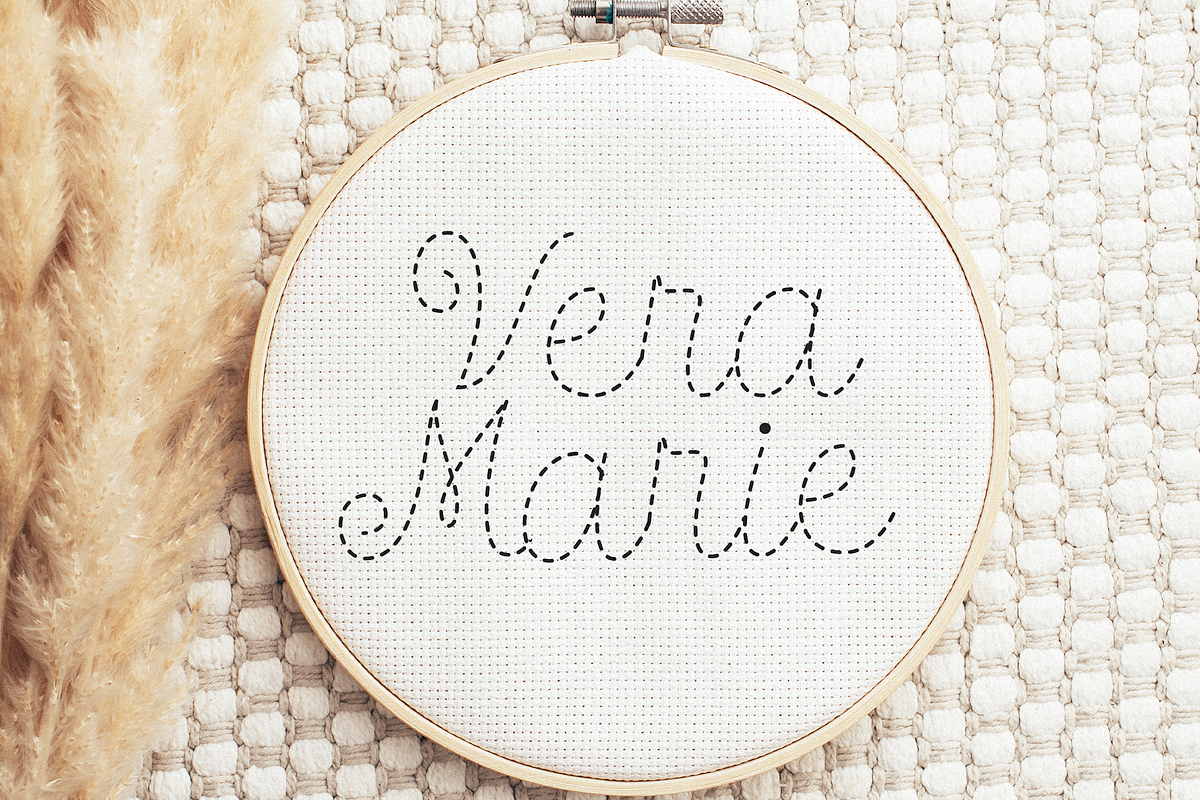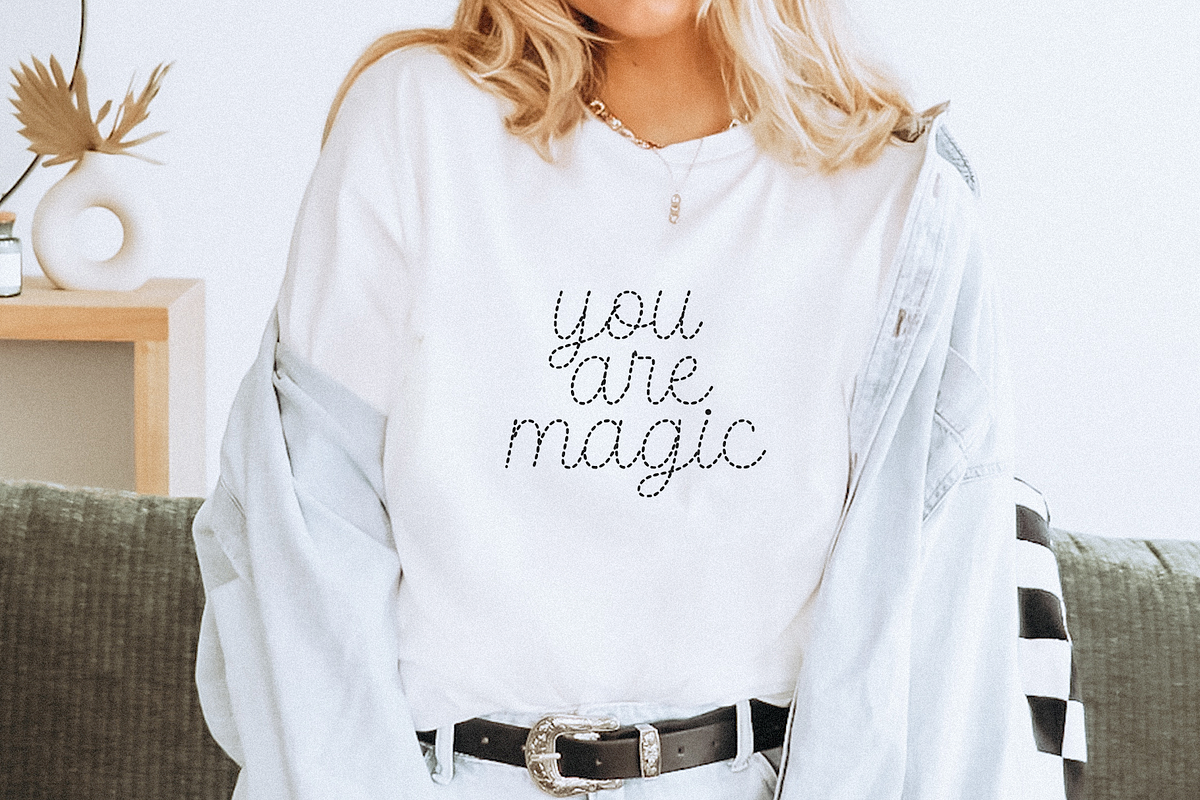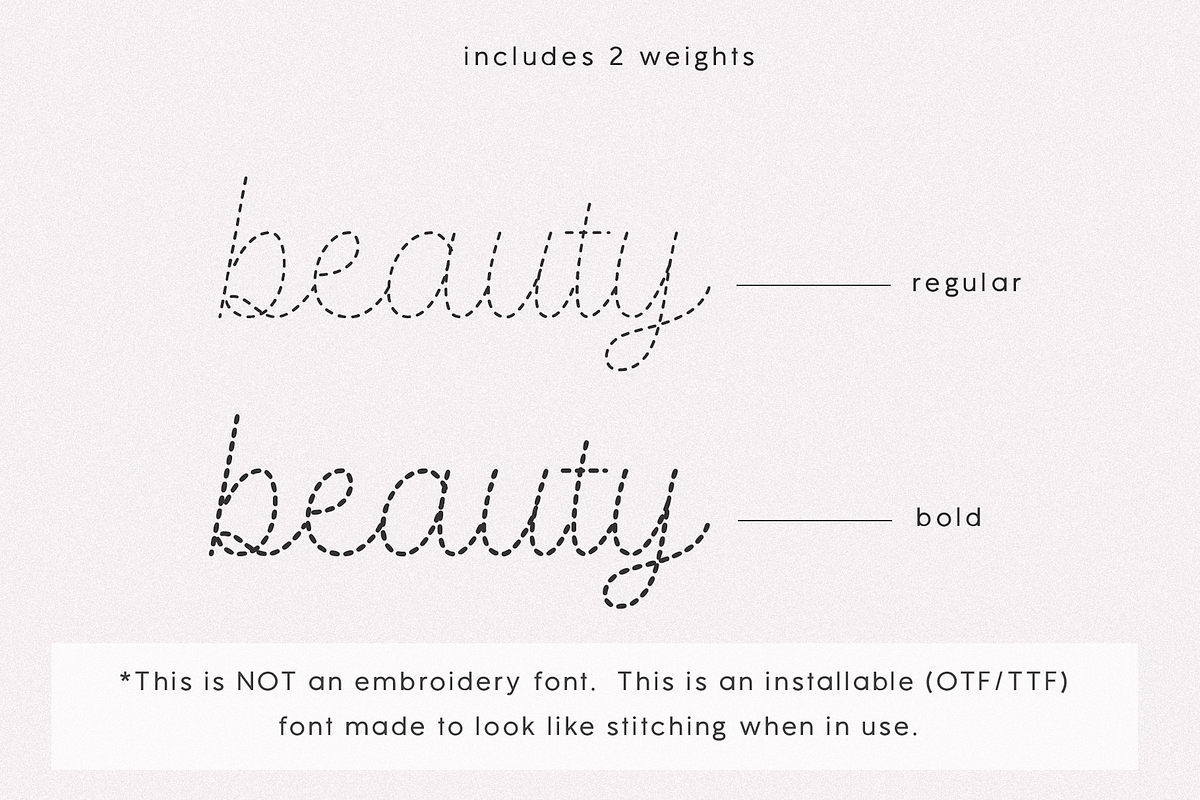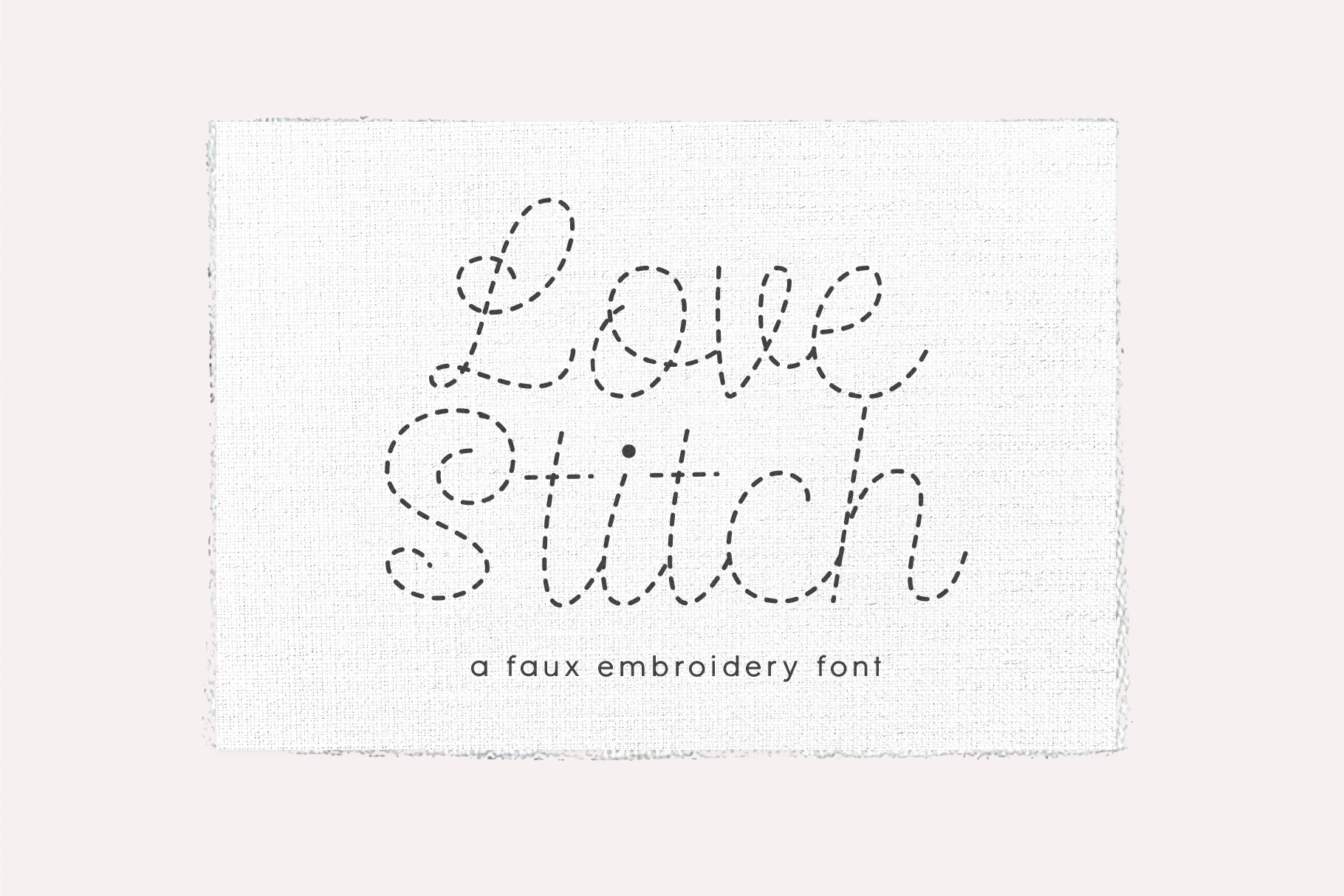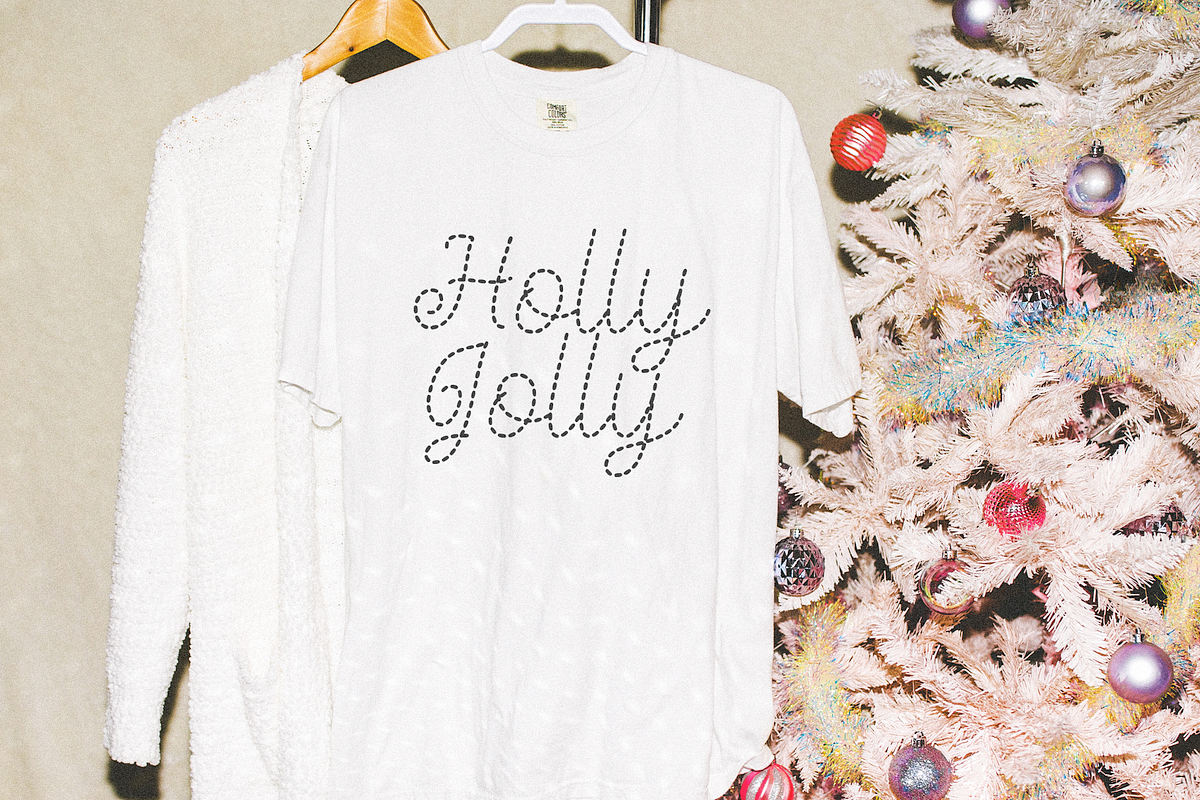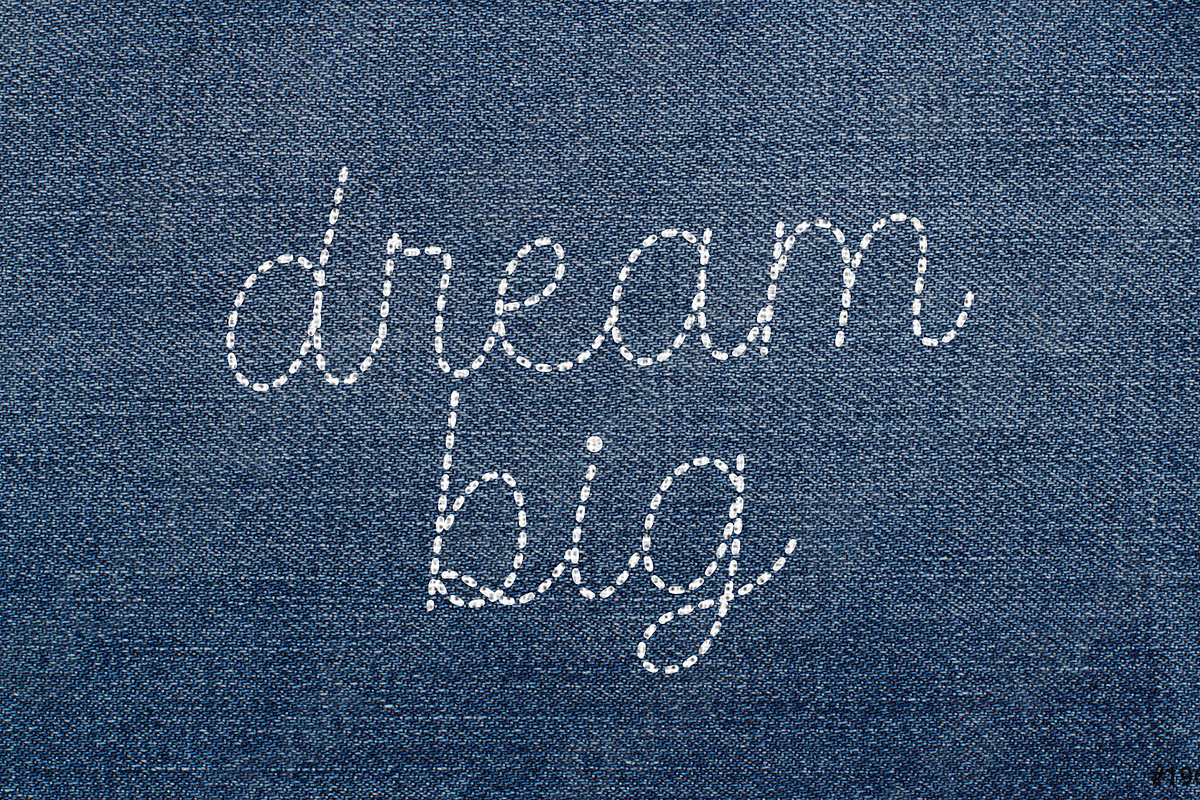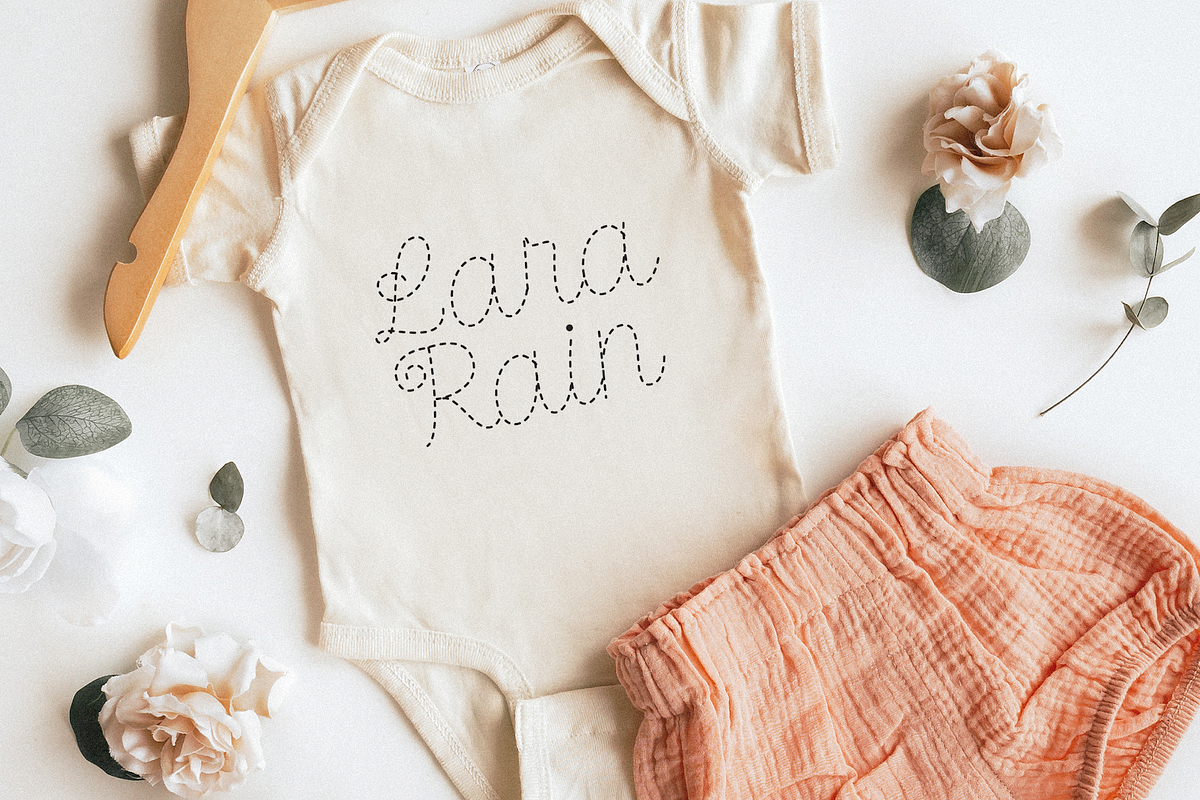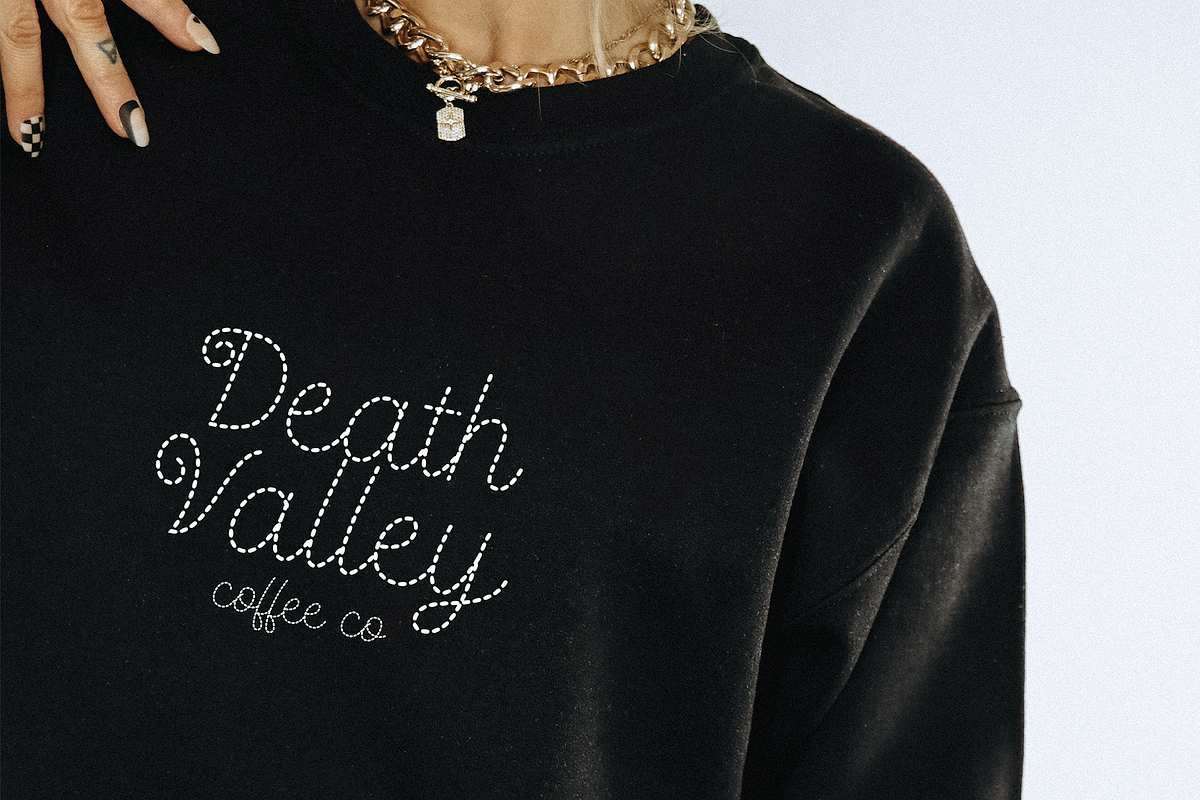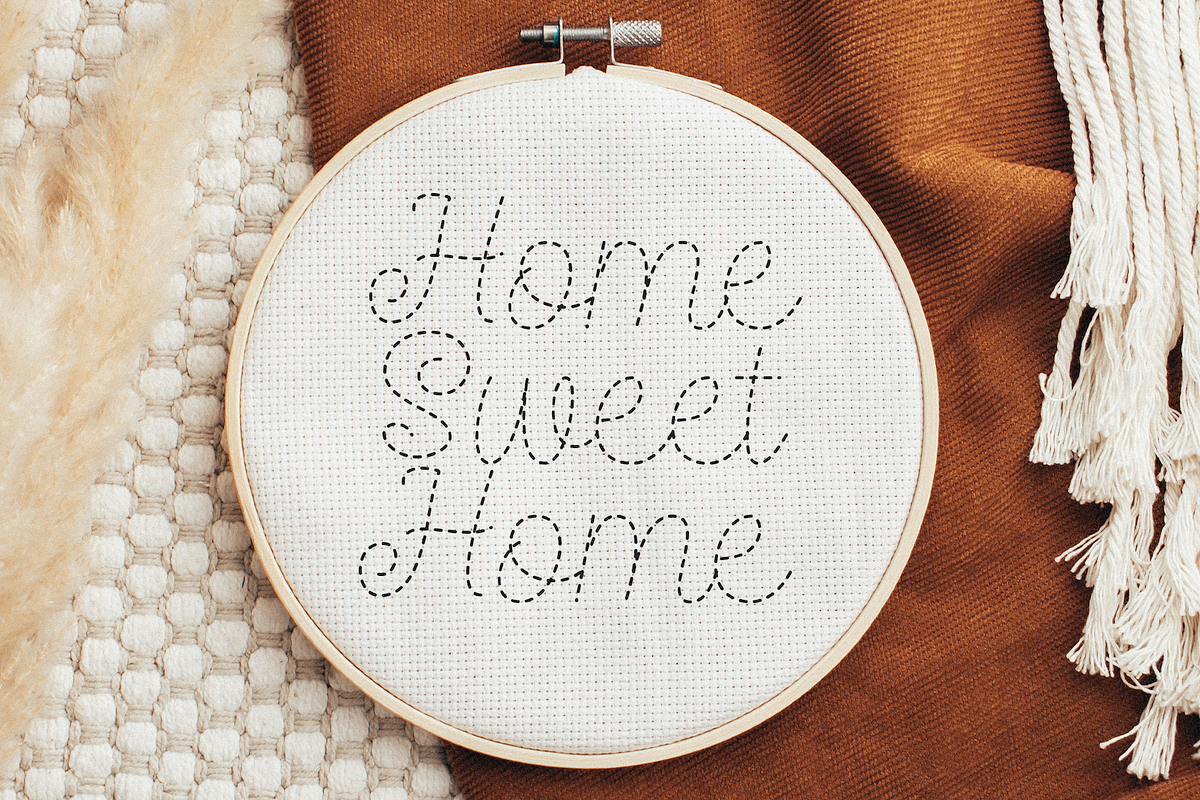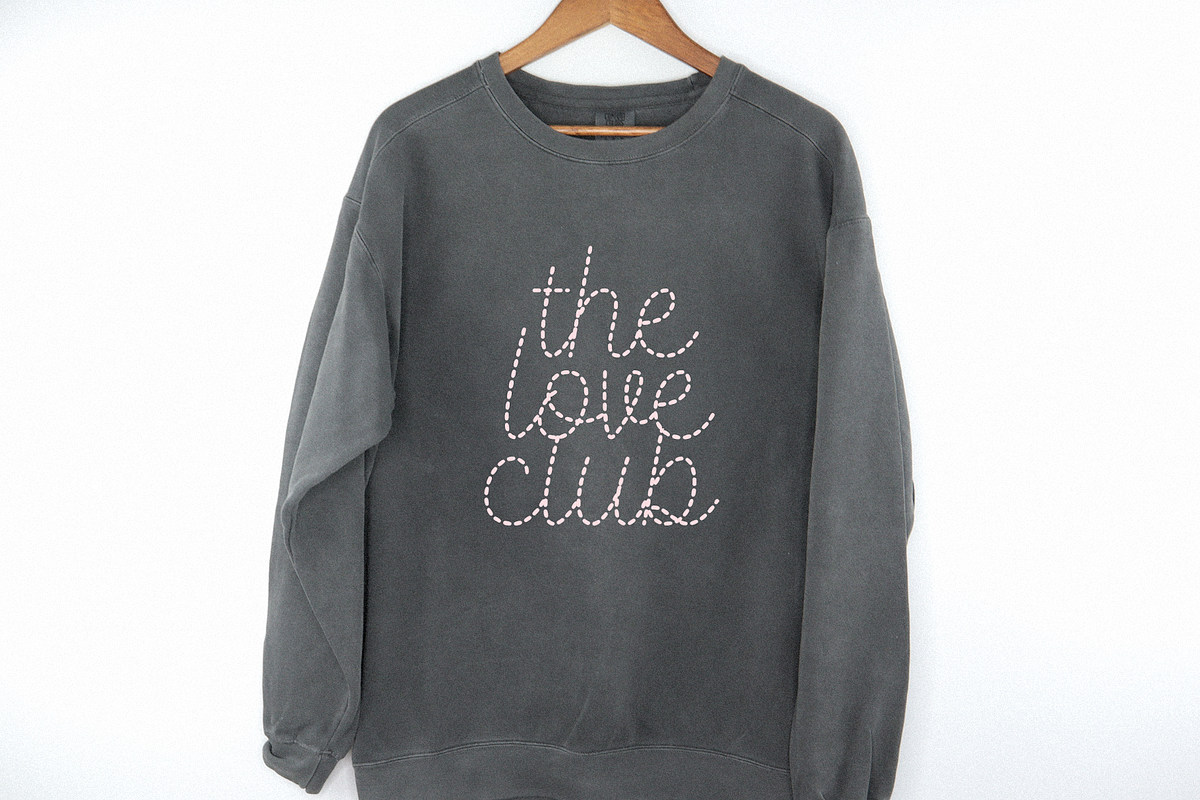
Love Stitch | Faux Embroidery Font
Love Stitch is a stitched script font.
This is NOT an embroidery font. This is an installable font (otf/ttf format) that is created to look like faux embroidery when in use.